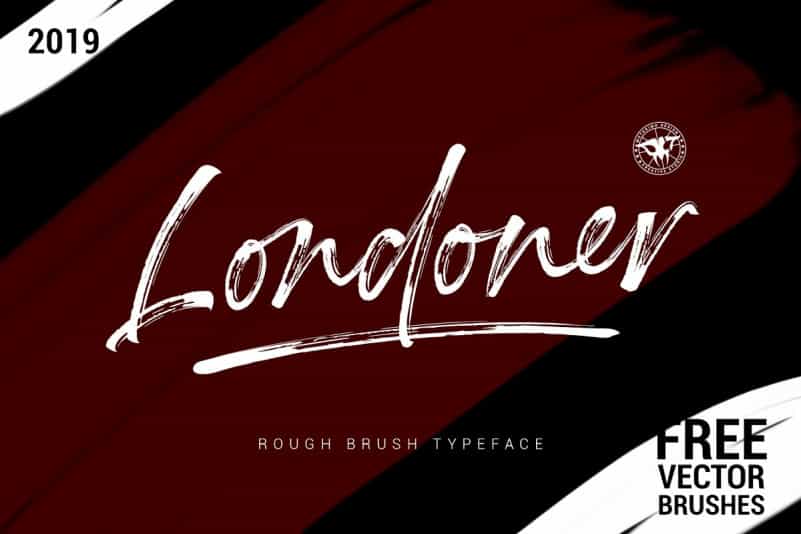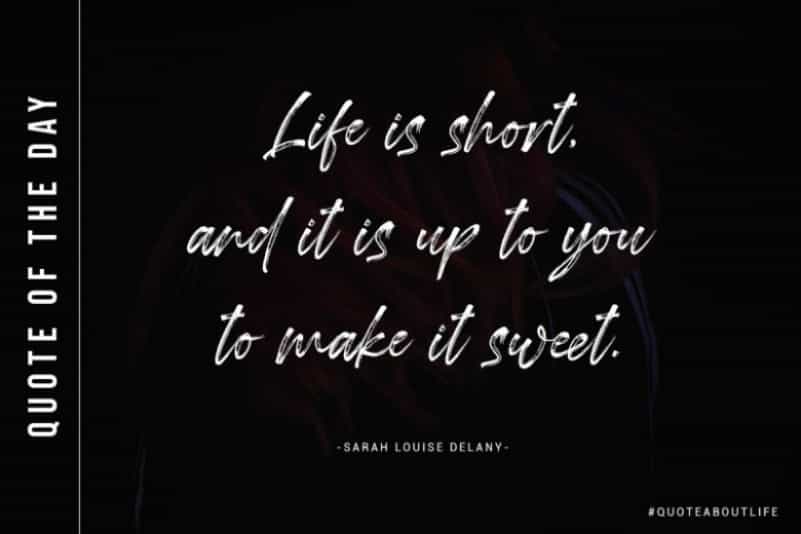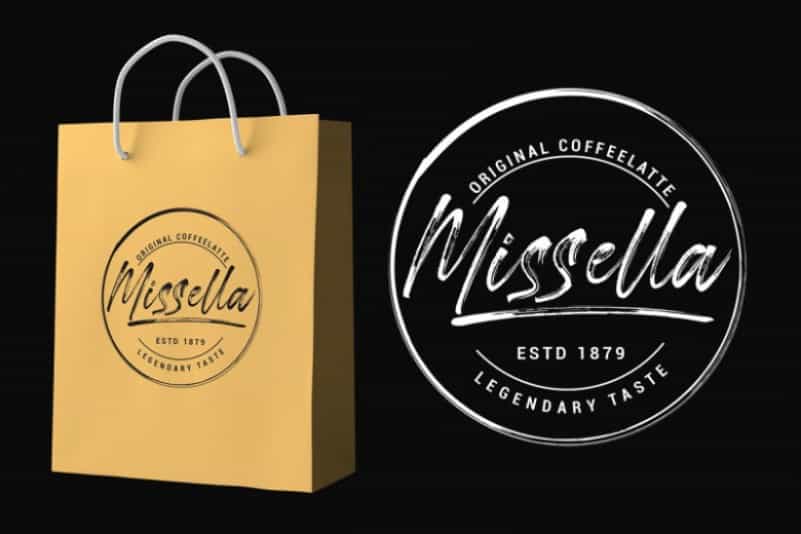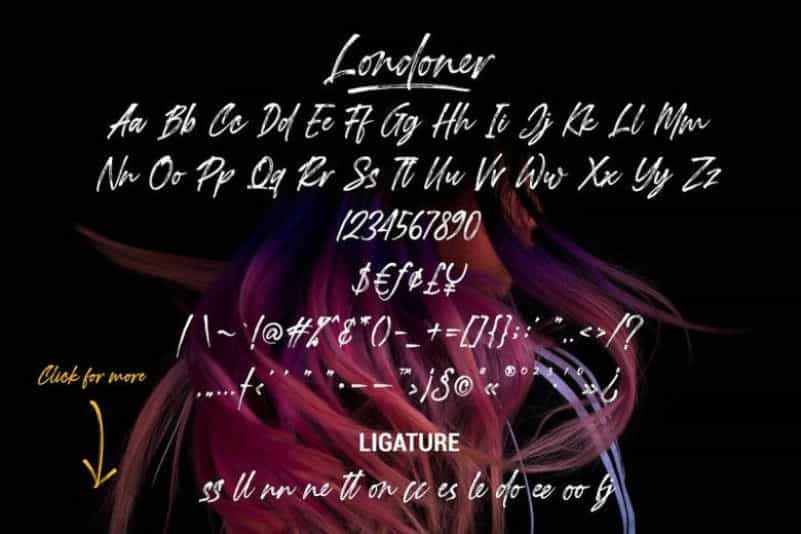
Hello. . Welcome again! Introducing Londoner Brush Font!This is handwritten with a brush pen, this font will make your text sparkle as if it was written by hand and there is no other way to describe the energy, dynamism and spontaneity of its flow. It is a creation of Motokiwo and it is shared by him.